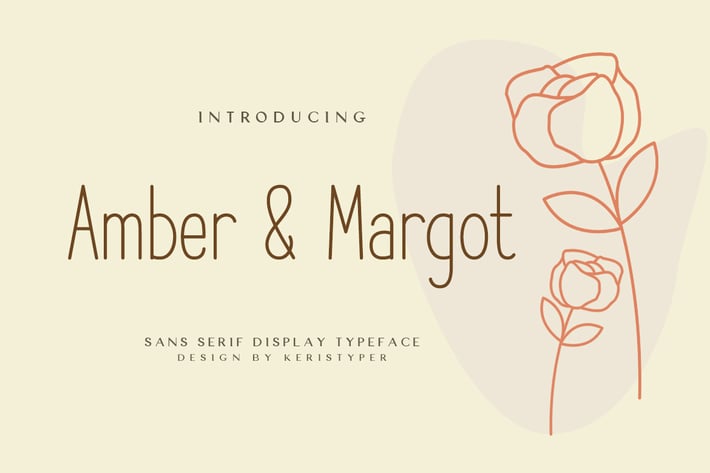
Amber and Margot San Serif Display Font
Introducing Amber & Margot the Sanserif Fun Font It's a modern, chic and stylish handwritten font, that gives the catchy design on your website, template, blog, photo caption, crafting, business promotion, social media posts, quotes and much more! Including uppercase alternative characters option to make your design looks more gorgeous!
Amber & Margot font multilingual support:
Afrikaans, Albanian, Catalan, Danish, Dutch, English, Estonian, French, Finnish, German, Icelandic, Indonesian, Italian, Malay, Norwegian, Portuguese, Spanish, Swedish, Zulu, and many more.
Standard & Multilingual glyphs